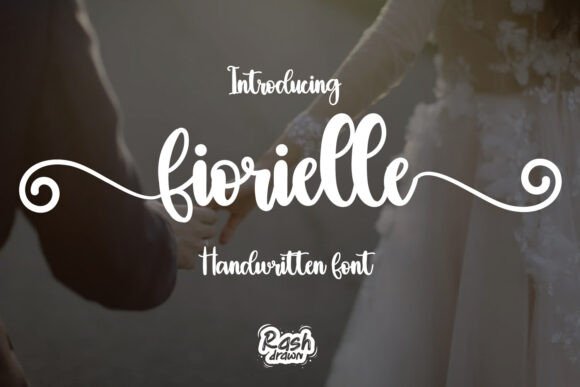
Fiorielle Font: Elevate Your Design with a Cool and Unique Handwritten Style
In the world of typography, a well-crafted font can make all the difference in creating a lasting impression. For designers and crafters looking to add a personal touch to their work, Fiorielle Font is an excellent choice. This beautifully designed handwritten font is perfect for creating cool and unique designs that stand out from the crowd.
What is Fiorielle Font?
Fiorielle Font is a carefully crafted handwritten font, designed to bring a touch of elegance and sophistication to any design project. Its unique and stylish letters are perfect for adding a personal touch to a wide range of applications, from letters and invitations to food products, titles, and more.
Key Features of Fiorielle Font
- Handwritten style: Fiorielle Font boasts a beautiful, handwritten style that adds a personal touch to any design.
- Cool and unique design: The font’s unique and stylish letters are perfect for creating designs that stand out from the crowd.
- Versatile: Fiorielle Font can be used for a wide range of applications, including letters, invitations, food products, titles, and more.
- Easily readable: The font is designed to be easily readable, making it perfect for body text and headings.
Uses of Fiorielle Font
Fiorielle Font is a versatile font that can be used in a variety of design projects. Here are some ideas to get you started:
- Invitations and greeting cards: Add a personal touch to your invitations and greeting cards with Fiorielle Font’s beautiful handwritten style.
- Food products and packaging: Use Fiorielle Font to create eye-catching labels and packaging for food products, such as baked goods, specialty foods, and more.
- Titles and headings: Add a touch of elegance to your titles and headings with Fiorielle Font’s stylish letters.
- Branding and marketing materials: Use Fiorielle Font to create unique and memorable branding and marketing materials, such as brochures, flyers, and business cards.
- Social media graphics: Add a personal touch to your social media graphics, such as Instagram posts and Facebook covers, with Fiorielle Font.
Tips for Using Fiorielle Font
Here are some tips for getting the most out of Fiorielle Font:
- Experiment with different sizes and colors: Fiorielle Font looks great in a variety of sizes and colors, so don’t be afraid to experiment and find the perfect combination for your design.
- Pair with other fonts: Fiorielle Font pairs well with other fonts, such as sans-serif fonts and script fonts. Try pairing it with a bold font for a striking contrast.
- Use it for headlines and titles: Fiorielle Font is perfect for headlines and titles, where its stylish letters can really shine.
Fiorielle Font is a beautiful and versatile handwritten font that is perfect for designers and crafters looking to add a personal touch to their work. With its cool and unique design, easily readable letters, and wide range of applications, Fiorielle Font is an excellent choice for any design project. Whether you’re creating invitations, food products, titles, or social media graphics, Fiorielle Font is sure to elevate your design and make it stand out from the crowd.